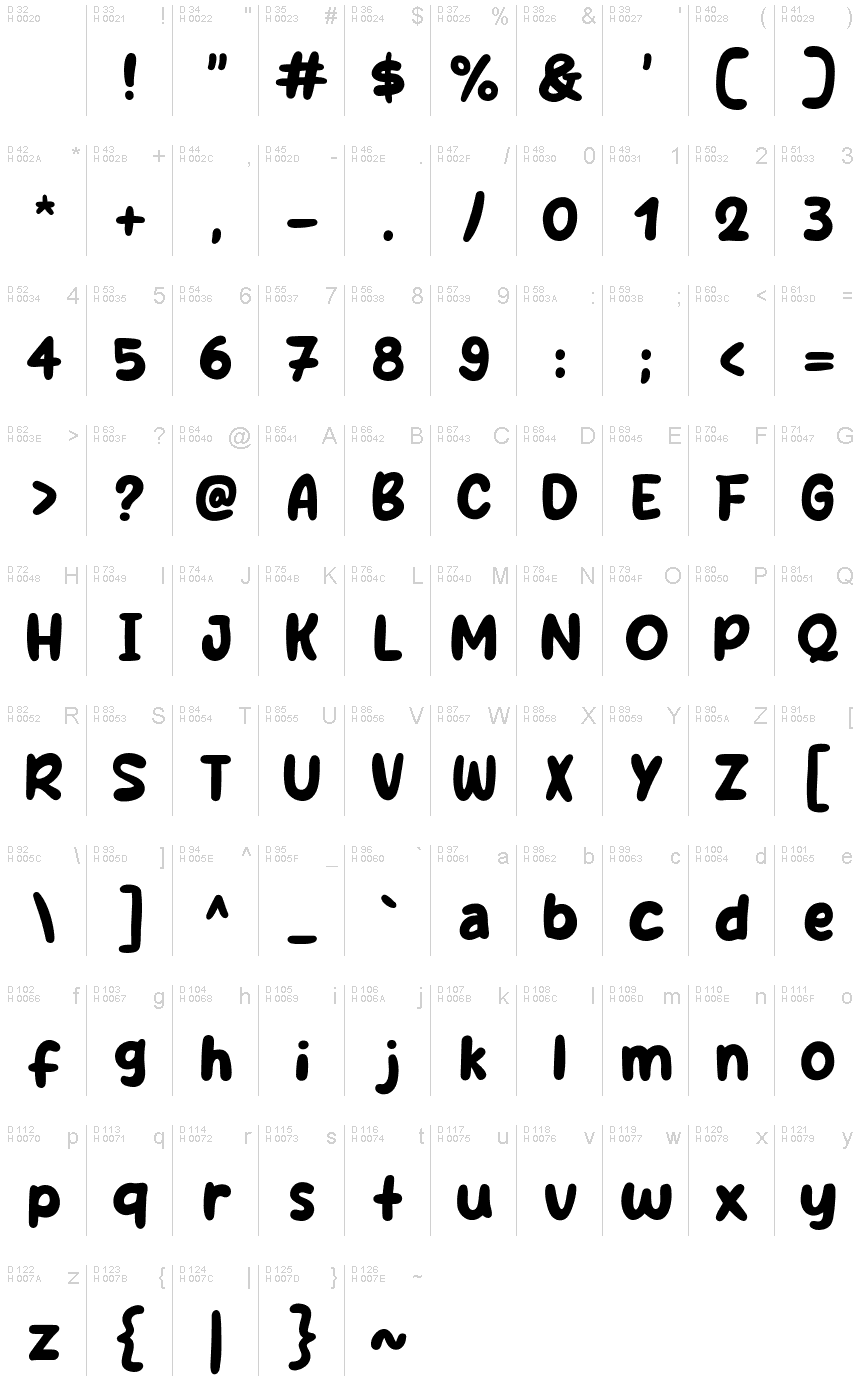
Sunday Hotdog
Sunday Hotdog, a bold and playful display font by Khurasan, brings a delightful cartoonish vibe to any project.
Its eye-catching design makes it perfect for children's books, animated movies, and toy packaging, adding a touch of fun and excitement. With its bold weight, Sunday Hotdog commands attention and is ideal for creating attention-grabbing headlines or logos that pop off the page. Whether you're designing posters for a circus event or creating quirky social media graphics, Sunday Hotdog will surely make your designs stand out in the most colorful and imaginative way possible.